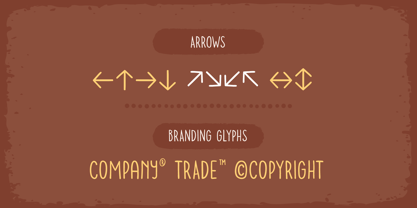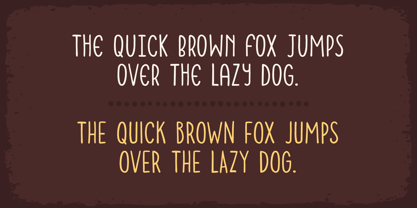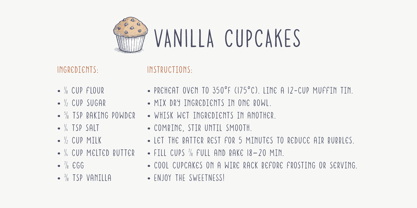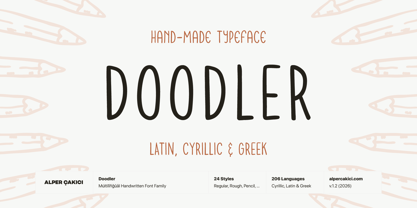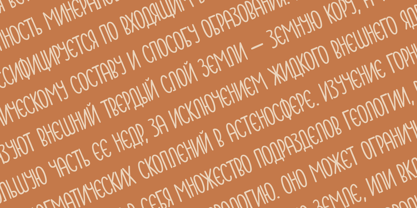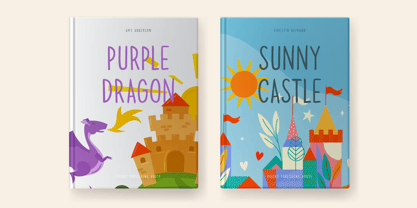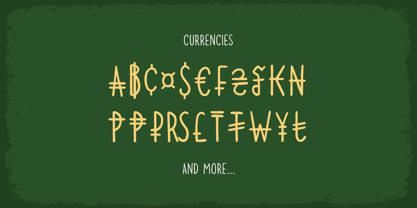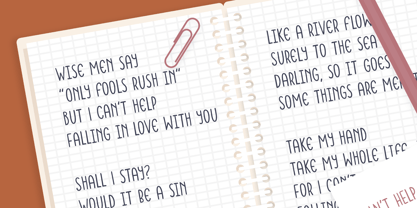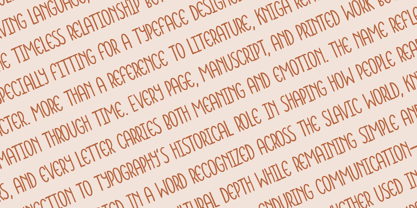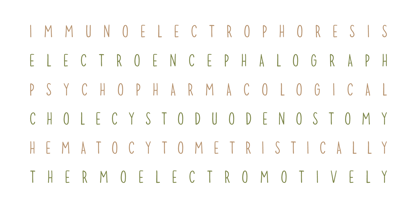
Doodler
The Doodler Font Family was designed by Alper Çakıcı and published by AlperCakici. Doodler contains 16 styles and family package options. More about this family
Doodler - A Handwritten Script Font : Doodler is a carefully crafted display font family. It has Extended Latin and Cyrillic characters. It created for poster, web, brand and social media designs.
It supports 97 Languages. Including: Belarusian, Russian, Afrikaans, Albanian, Asu, Basque, Bemba, Bena, Breton, Catalan, Chiga, Colognian, Cornish, Croatian, Czech, Danish, Dutch, Embu, English, Esperanto, Estonian, Faroese, Filipino, Finnish, French, Friulian, Galician, German, Gusii, Hungarian, Indonesian, Irish, Italian, Kabuverdianu, Kalenjin, Kamba, Kikuyu, Kinyarwanda, Latvian, Lithuanian, Lower Sorbian, Luo, Luxembourgish, Luyia, Machame, Makhuwa-Meetto, Makonde, Malagasy, Maltese, Manx, Meru, Morisyen, North Ndebele, Norwegian Bokmål, Norwegian Nynorsk, Nyankole, Oromo, Polish, Portuguese, Quechua, Romanian, Romansh, Rombo, Rundi, Rwa, Samburu, Sango, Sangu, Scottish Gaelic, Sena, Serbian, Shambala, Shona, Slovak, Soga, Somali, Spanish, Swahili, Swedish, Swiss German, Taita, Teso, Turkish, Upper Sorbian, Uzbek (Latin), Volapük, Vunjo, Walser, Welsh, Western Frisian, Zulu and more..